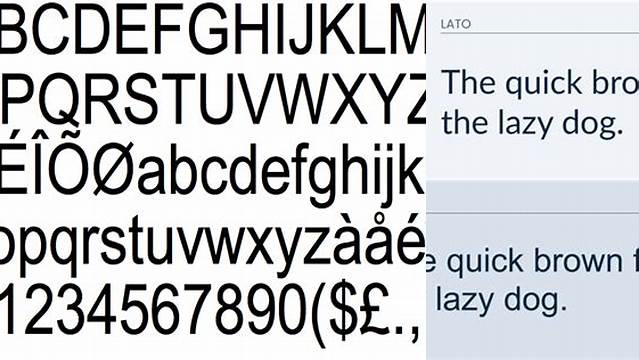
Best Google Fonts Similar To Arial Narrow For 2024
Hey guys! Are you on the hunt for Google Fonts similar to Arial Narrow? You've come to the right place! Arial Narrow is a widely used sans-serif font, known for its clean, condensed appearance, making it a favorite for designs where space is at a premium. But sometimes, you need a fresh alternative, something that offers a similar vibe but with a unique touch. That's where Google Fonts come in! This guide will walk you through some fantastic Google Fonts that closely resemble Arial Narrow, giving you plenty of options to spice up your projects. We’ll delve into what makes Arial Narrow so popular, discuss the key characteristics to look for in alternative fonts, and then explore a curated list of Google Fonts that fit the bill. So, let's dive in and discover some amazing typefaces that will elevate your designs!
Why Look for Alternatives to Arial Narrow?
Before we jump into the fonts themselves, let's quickly discuss why you might even be looking for alternatives in the first place. Arial Narrow is a great font, no doubt. It’s legible, versatile, and widely available. However, its ubiquity can sometimes be a drawback. Using it in your designs might make them feel a bit generic or uninspired. Plus, exploring different fonts can help you discover unique ways to express your brand’s personality and stand out from the crowd. Another reason to look for alternatives is to ensure your website or application has a distinct visual identity. While Arial Narrow is a safe choice, it might not always align with the specific tone and message you want to convey. By experimenting with similar fonts, you can find one that better reflects your brand's character and creates a more memorable user experience. For instance, a tech startup might prefer a font with a slightly more modern and geometric feel, while a creative agency might opt for a typeface with a touch of personality and flair. Furthermore, using a different font can help you avoid the visual fatigue that can sometimes result from seeing the same typeface everywhere. By diversifying your font choices, you can keep your designs fresh and engaging, capturing the attention of your audience and maintaining their interest. Ultimately, the goal is to find a font that not only resembles Arial Narrow in its functionality and legibility but also adds a unique dimension to your overall design aesthetic.
Key Characteristics of Arial Narrow
Okay, so what exactly makes Arial Narrow, well, Arial Narrow? Understanding its key characteristics is crucial when searching for similar Google Fonts. The most defining feature, as the name suggests, is its narrow width. This condensed design allows you to fit more text into a limited space, which is super handy for things like headlines, sidebars, and tables. Think of it as the font equivalent of packing a suitcase efficiently – you get more in without taking up extra room! Beyond its narrowness, Arial Narrow is also known for its clean and simple sans-serif design. It lacks the small decorative strokes (serifs) found in fonts like Times New Roman, giving it a more modern and minimalist feel. This makes it highly legible, especially at smaller sizes and on screens. Legibility is paramount in typography, ensuring that your message is easily understood by your audience. Arial Narrow excels in this area, making it a reliable choice for body text and other content-heavy applications. The font also boasts a relatively neutral appearance, meaning it doesn't have a strong personality of its own. While this might sound like a drawback, it actually makes Arial Narrow incredibly versatile. It can be used in a wide range of design contexts without clashing or overpowering other elements. This neutrality is a key factor in its widespread adoption, as it allows the font to seamlessly integrate into various design styles and applications. In summary, when looking for Google Fonts similar to Arial Narrow, you'll want to prioritize typefaces that share these core characteristics: narrow proportions, sans-serif construction, excellent legibility, and a relatively neutral personality. Keep these factors in mind as we explore the alternatives, and you'll be well-equipped to find the perfect font for your project.
Top Google Fonts Similar to Arial Narrow
Now for the fun part! Let's dive into the list of top Google Fonts that are similar to Arial Narrow. I've handpicked these fonts based on their resemblance in terms of narrowness, sans-serif style, legibility, and overall versatility. Get ready to meet your new favorite typeface!
1. Montserrat
First up is Montserrat, a hugely popular font that’s often cited as a great alternative to Arial Narrow. Montserrat is a geometric sans-serif typeface designed by Julieta Ulanovsky. It draws inspiration from the urban typography of Buenos Aires, particularly the signs and posters of the Montserrat neighborhood. This font boasts a clean, modern aesthetic with excellent legibility, making it suitable for a wide range of design applications. Its geometric construction gives it a contemporary feel, while its overall simplicity ensures it remains highly readable even at small sizes. Montserrat's versatility stems from its wide range of weights, from thin to black, providing designers with ample options for creating visual hierarchy and emphasis. Whether you're designing a website, a brochure, or a logo, Montserrat offers a professional and polished look. The font's geometric forms are not only visually appealing but also contribute to its clarity and legibility. The even stroke weights and consistent letterforms ensure that text set in Montserrat is easy to read, regardless of the medium. This makes it a reliable choice for body text, headlines, and captions alike. Additionally, Montserrat's open counters and generous spacing enhance its readability, particularly in digital environments. The font's balanced proportions and harmonious letterforms create a sense of visual rhythm, making it a pleasure to read long passages of text set in Montserrat. Its modern and sophisticated appearance makes it a popular choice for branding materials, websites, and print publications. If you're looking for a font that exudes professionalism and clarity, Montserrat is an excellent option. Its clean lines and geometric shapes convey a sense of precision and attention to detail, making it ideal for projects that require a polished and sophisticated aesthetic. Montserrat is also a great choice for user interfaces, where legibility and clarity are paramount. Its clear and concise letterforms ensure that users can easily navigate and interact with the interface, enhancing the overall user experience.
2. Roboto
Next, we have Roboto, another fantastic Google Font that closely resembles Arial Narrow. Roboto is a neo-grotesque sans-serif typeface family developed by Google as the system font for its mobile operating system Android. This font is known for its dual nature, possessing both mechanical and friendly qualities. Roboto’s letterforms are geometric in shape, yet they incorporate open curves and natural strokes that give it a warm and approachable feel. This unique combination makes Roboto highly versatile, suitable for a wide range of design applications, from mobile interfaces to print materials. The font’s design prioritizes legibility and readability, ensuring that text remains clear and easy to read even at small sizes. Roboto's multiple weights and styles, including condensed versions, further enhance its flexibility, allowing designers to create visual hierarchy and emphasis within their designs. Whether you're designing a website, an app, or a printed document, Roboto provides a clean and contemporary aesthetic. Its balanced letterforms and consistent spacing contribute to a harmonious reading experience. The font's open counters and generous x-height improve readability, making it a reliable choice for body text and headlines alike. Roboto's dual nature, blending mechanical precision with friendly curves, makes it a unique and versatile typeface. Its geometric construction gives it a modern and efficient feel, while its subtle curves and natural strokes add warmth and approachability. This balance makes Roboto suitable for a wide range of design styles, from corporate to creative. The font's clean lines and simple forms ensure that it remains legible and unobtrusive, allowing the content to take center stage. Roboto's widespread adoption as the system font for Android has also contributed to its familiarity and recognizability. Many users are already accustomed to seeing Roboto on their devices, making it a comfortable and familiar choice for digital applications. If you're looking for a font that combines legibility, versatility, and a touch of warmth, Roboto is an excellent option.
3. Open Sans
Open Sans is another excellent choice when you're looking for Google Fonts similar to Arial Narrow. It’s a humanist sans-serif typeface designed by Steve Matteson, commissioned by Google, and it's incredibly popular for its readability and friendly appearance. Open Sans was specifically designed with readability in mind, making it a great option for body text and longer passages. Its open forms and clear letter shapes ensure that the text remains legible even at small sizes and on screens. The font’s neutral yet friendly appearance makes it suitable for a wide range of applications, from websites and apps to print materials and presentations. Open Sans is characterized by its open apertures and clear letterforms, which contribute to its excellent readability. The font's design prioritizes clarity and simplicity, ensuring that text remains easy to read regardless of the medium. Its humanist qualities, such as the slightly varying stroke weights and natural curves, give it a warm and approachable feel. This makes Open Sans a versatile choice for a variety of design styles, from corporate to casual. The font's wide range of weights and styles, including italics, further enhances its flexibility, allowing designers to create visual hierarchy and emphasis within their designs. Open Sans is a popular choice for websites due to its excellent readability on screens. Its clear letterforms and generous spacing ensure that text remains legible even at small sizes, making it ideal for body text and navigation menus. The font's friendly and approachable appearance also contributes to a positive user experience. In addition to its digital applications, Open Sans is also a great choice for print materials. Its clean and simple design makes it easy to read in printed documents, such as brochures, flyers, and reports. The font's versatility extends to presentations, where its clear and legible letterforms ensure that your message is easily understood by your audience. If you're looking for a font that combines readability, versatility, and a friendly appearance, Open Sans is an excellent option.
4. Nunito Sans
Let's talk about Nunito Sans, a fantastic Google Font that brings a slightly softer and more rounded feel compared to Arial Narrow, while still maintaining excellent readability. Nunito Sans is a well-balanced sans-serif typeface designed by Jacques Le Bailly. It’s an evolution of the original Nunito font, which was a rounded terminal sans-serif intended for display use. Nunito Sans expands upon this foundation with a complete set of weights and styles, making it suitable for both display and text use. The font’s rounded terminals give it a friendly and approachable appearance, while its clean lines and balanced proportions ensure excellent legibility. Nunito Sans is a versatile typeface that works well in a variety of design contexts, from websites and mobile apps to print materials and branding. Its soft curves and rounded forms create a sense of warmth and approachability, making it a great choice for projects that aim to convey a friendly and welcoming tone. The font’s clean and simple design ensures that it remains legible and unobtrusive, allowing the content to take center stage. Nunito Sans’s rounded terminals distinguish it from more geometric sans-serif typefaces, such as Montserrat and Roboto. This subtle difference in design gives it a unique personality, while still maintaining a high degree of readability. The font’s balanced proportions and consistent letterforms contribute to a harmonious reading experience. Nunito Sans is available in a wide range of weights, from extra-light to black, providing designers with ample options for creating visual hierarchy and emphasis within their designs. Its versatility makes it a popular choice for websites, where it can be used for both headlines and body text. The font’s friendly appearance also makes it well-suited for mobile apps, where a welcoming and approachable tone is often desired. In addition to its digital applications, Nunito Sans is also a great choice for print materials, such as brochures and flyers. Its rounded terminals and clean lines create a visually appealing and easy-to-read typeface. If you're looking for a font that combines readability, versatility, and a friendly personality, Nunito Sans is an excellent option.
5. Lato
Last but not least, we have Lato, a sleek and modern Google Font that offers a similar vibe to Arial Narrow but with a touch more elegance. Lato is a sans-serif typeface designed by Łukasz Dziedzic. It is characterized by its semi-rounded details, which give it a warm and friendly feel, while its strong structure ensures stability and legibility. Lato’s name comes from the Polish word for “summer,” and the font indeed evokes a sense of warmth and optimism. This typeface is highly versatile and can be used in a wide range of design applications, from corporate websites to personal blogs. Lato’s semi-rounded details and subtle curves distinguish it from more geometric sans-serif typefaces, giving it a unique and approachable personality. The font’s clean lines and balanced proportions ensure excellent legibility, making it a great choice for both headlines and body text. Lato’s design prioritizes clarity and readability, ensuring that text remains easy to read even at small sizes and on screens. The font’s open counters and generous spacing contribute to its overall legibility, making it a reliable choice for a variety of design contexts. Lato is available in a wide range of weights and styles, including italics, providing designers with ample options for creating visual hierarchy and emphasis within their designs. Its versatility makes it a popular choice for websites, where it can be used for everything from navigation menus to blog posts. The font’s friendly and approachable appearance also makes it well-suited for mobile apps and user interfaces. In addition to its digital applications, Lato is also a great choice for print materials, such as brochures, business cards, and reports. Its clean and elegant design ensures that your message is conveyed with clarity and professionalism. If you're looking for a font that combines readability, versatility, and a touch of elegance, Lato is an excellent option.
How to Choose the Right Font for Your Project
Okay, so we've looked at some awesome Google Fonts similar to Arial Narrow, but how do you actually choose the right one for your project? It's not just about picking the one that looks the coolest (though that's definitely a factor!). There are a few key things to consider to make sure your font choice aligns with your overall design goals. First, think about the tone and personality you want to convey. Is your brand serious and professional, or more playful and creative? A font like Montserrat might be perfect for a corporate website, while Nunito Sans could be a better fit for a children's book. The font you choose should reflect the overall mood and message you want to communicate. Next up, legibility is key, especially for body text. If people can't easily read your content, they're going to bounce. Look for fonts with clear letterforms and adequate spacing, like Open Sans or Roboto. Test your font choices at different sizes and on different devices to ensure they remain legible in all contexts. Consider the context where your font will be used. A font that looks great in a headline might not work well in a paragraph of text. Think about the specific application of your font and choose accordingly. Also, don't be afraid to experiment! Try out different font pairings and see what works best for your project. Sometimes the most unexpected combinations can lead to stunning results. And finally, think about your brand. Your font should align with your overall brand identity and help reinforce your brand message. Consistency is key when it comes to branding, so choose a font that you can use across all your marketing materials. Remember, choosing the right font is a crucial part of the design process. Take your time, consider your options, and don't be afraid to try something new. With a little bit of effort, you can find the perfect typeface to elevate your project and make it truly shine.
So there you have it, guys! A comprehensive guide to Google Fonts similar to Arial Narrow. We've explored why you might want to look for alternatives, the key characteristics of Arial Narrow, and a curated list of fantastic Google Fonts that offer a similar vibe. We’ve also discussed how to choose the right font for your project, emphasizing the importance of tone, legibility, context, and brand consistency. Remember, the world of typography is vast and exciting, and there's a perfect font out there for every project. By exploring different options and understanding the nuances of each typeface, you can elevate your designs and create a lasting impression on your audience. Whether you opt for the clean geometric lines of Montserrat, the versatile charm of Roboto, the friendly readability of Open Sans, the soft curves of Nunito Sans, or the elegant touch of Lato, you're sure to find a font that perfectly complements your vision. Don't be afraid to experiment, mix and match, and discover new typographic combinations that express your unique style and personality. The key is to approach font selection with intention and purpose, always keeping your design goals and target audience in mind. So go ahead, explore these alternatives, and let your creativity shine! Happy designing!